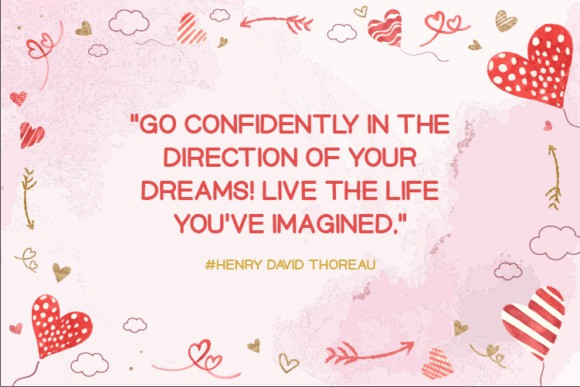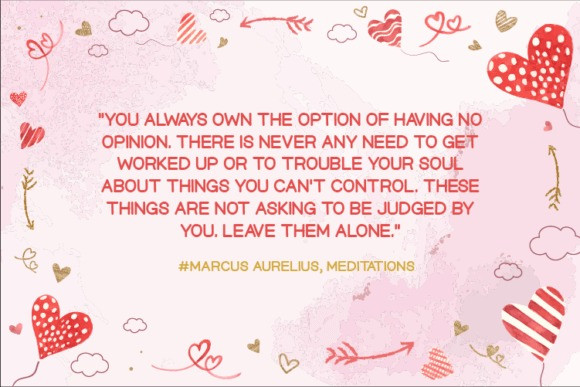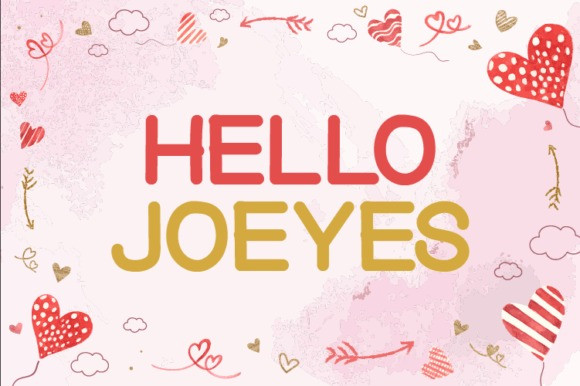
Hello Joeyes Font
Hello Joeyes Sans Serif Font is a quirky and playful sans serif font. Whether you’re using it for crafts, digital design, presentations, or making greeting cards, this font has the potential to become your favorite go-to font, no matter the occasion.